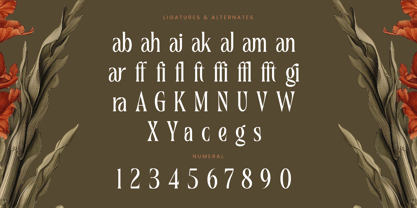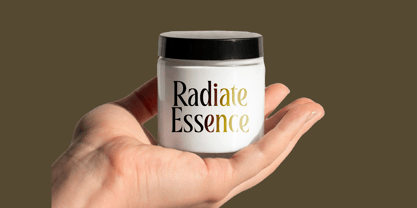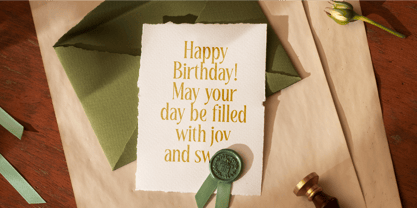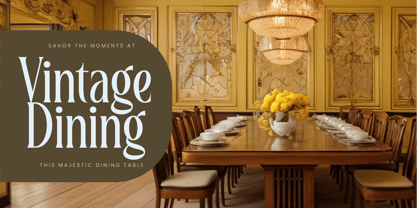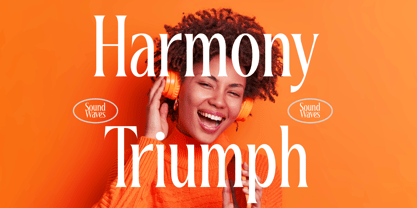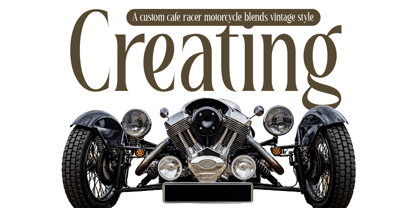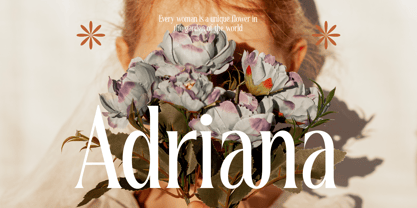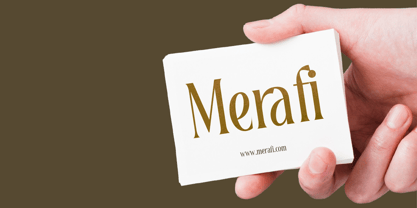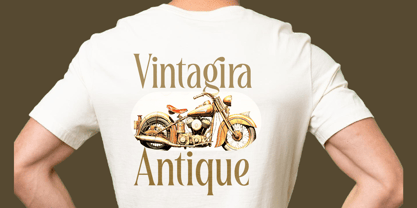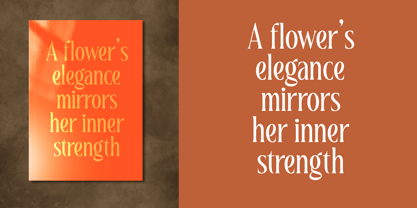
Magiora
Die Schriftfamilie Magiora wurde von Heru Utama Putra entworfen und von Timelesstype Studio veröffentlicht. Magiora enthält 2 Stile und Familienpaketoptionen. Mehr über diese Familie
Magiora - Tall Serif Display , from Timelesstype, Suitable for any projects such as: logos, branding projects, homeware designs, product packaging, mugs, quotes, posters, shopping bags, t-shirts, book covers, name card, invitation cards, greeting cards, label, photography, watermark, special events, and all your other luxury and beautiful projects that need a Luxury Serif taste.